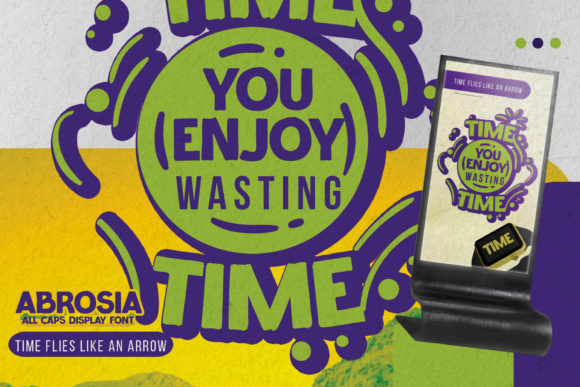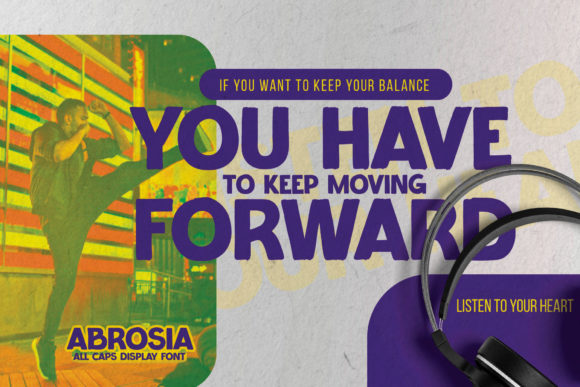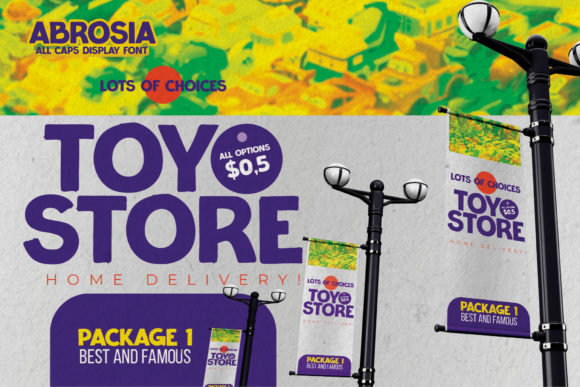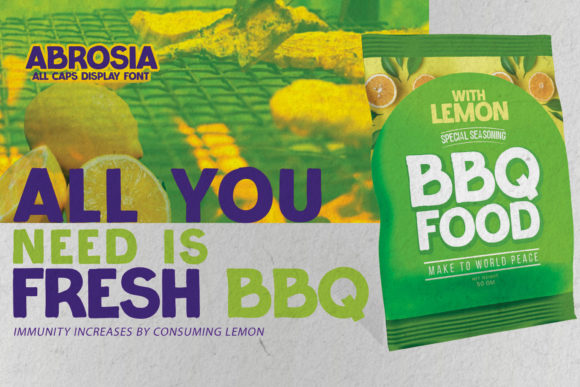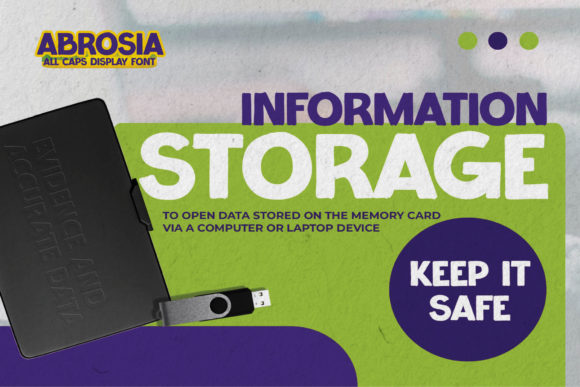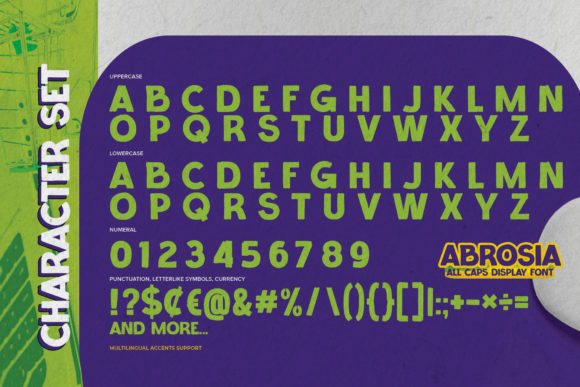
The Ultimate Guide to Abrosia Font: Adding a Jolly Touch to Your Designs
I’ll never forget the time I was working on a cartoon project for a children’s magazine. I had all the illustrations ready, but I was struggling to find the perfect font to match the playful vibe. That’s when I stumbled upon Abrosia Font, and it instantly became the missing piece of the puzzle. In this article, I’ll share my experience with Abrosia, its features, and how to make the most of it in your designs.
Abrosia Font: A Personal Review
Abrosia is a fun and thick lettered display font that’s perfect for delivering messages with confidence, authenticity, and charm. Here’s what I love about it:
- ✨ Unique and playful style: Abrosia has a distinctive look that’s sure to grab attention.
- ✅ Highly versatile: It can be used for a wide range of projects, from cartoons and magazine covers to games and more.
- 💥 Excellent for headlines and titles: The font’s bold and chunky letters make it perfect for creating eye-catching headlines.
However, there are a few quirks to keep in mind:
- 🤔 Limited use for body text: Due to its bold nature, Abrosia might not be the best choice for long paragraphs of text.
- ⚠️ May not work well with small sizes: The font’s chunky letters can become overwhelming when scaled down.
One of the best things about Abrosia is its OpenType features and glyphs. These allow you to add more variety and personality to your text. Here are a few tips:
- Stylistic alternates: These are alternative versions of letters that can be used to create a more unique look.
- Glyphs: These are special characters that can be used to add more visual interest to your text.
The Story Behind Abrosia Font
Abrosia was designed with the intention of creating a fun and playful font that’s perfect for grabbing attention. The designer wanted to create a font that’s both bold and charming, making it suitable for a wide range of projects. Whether you’re working on a cartoon, magazine cover, or game, Abrosia is sure to bring a jolly touch to your design.
| Font Name | Abrosia Font |
| Author | Gassstype Studio |
| What is Abrosia font best used for? | Abrosia is perfect for headlines, titles, and short paragraphs of text where you want to make a bold statement. |
| Is Abrosia suitable for body text? | While Abrosia can be used for body text, it’s not the best choice due to its bold nature. It’s better suited for headlines and titles. |